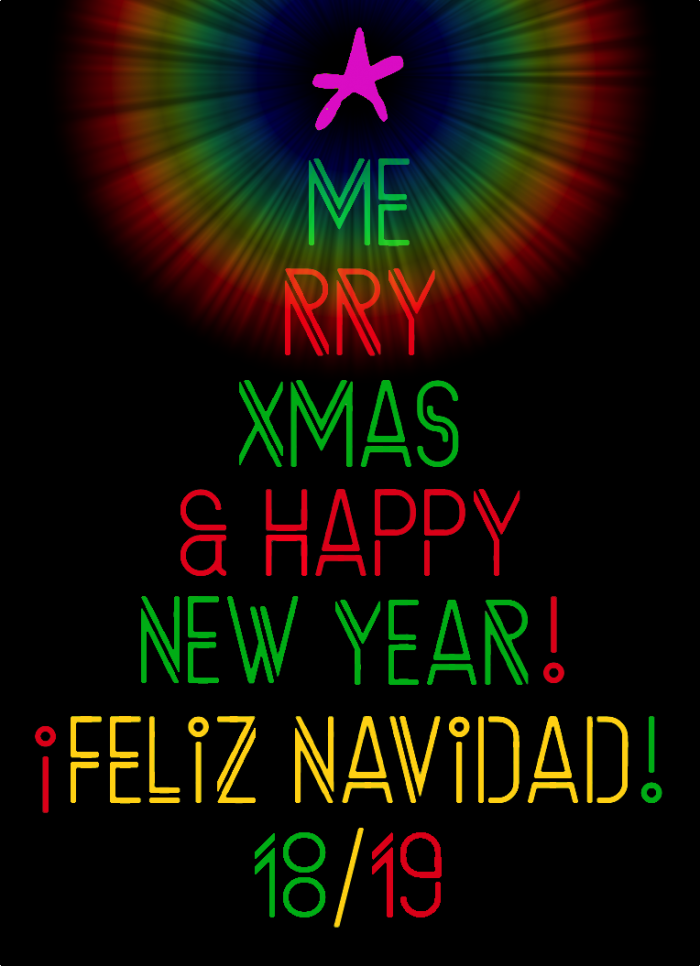
Need more kerning. Work in progress...
Nice font there! I noticed that Ñ = N̄, along with some others like that... Remember: The tilde and the macron are different things...
Did you know that Semiramis was the legendary Lydian-Babylonian wife of Onnes and Ninus, succeeding the latter to the throne of Assyria.
Interesting that letters appear rounded in your sample.
Glyphs g,s,@,ß are so cool!
He sometimes uses screen captures he uses to create his samples...